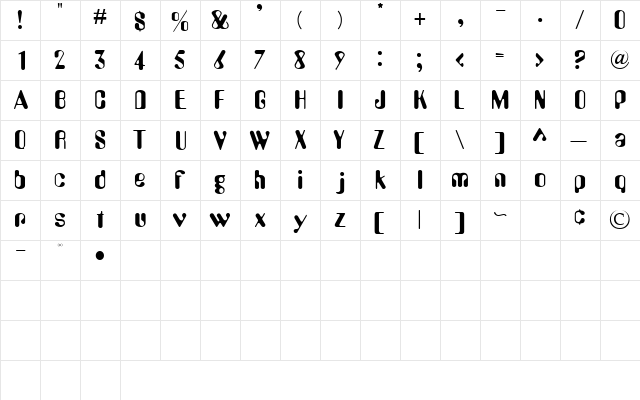
WedoSSK Bold
Design Context for WedoSSK Typeface
WedoSSK is a composed and adaptable typeface that performs quietly and consistently across a wide range of design contexts. The heavy weight commands attention and anchors typographic hierarchies.